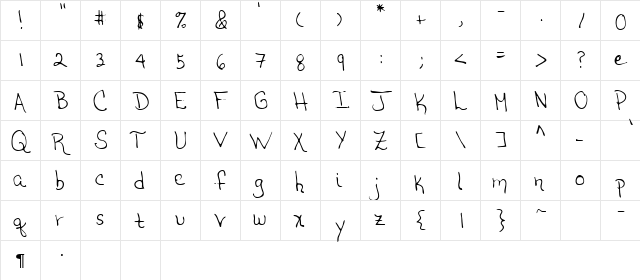
Armour Regular Font Preview
Armour Regular
Design Context for Armour Typeface
Armour is a composed and adaptable typeface that performs quietly and consistently across a wide range of design contexts.